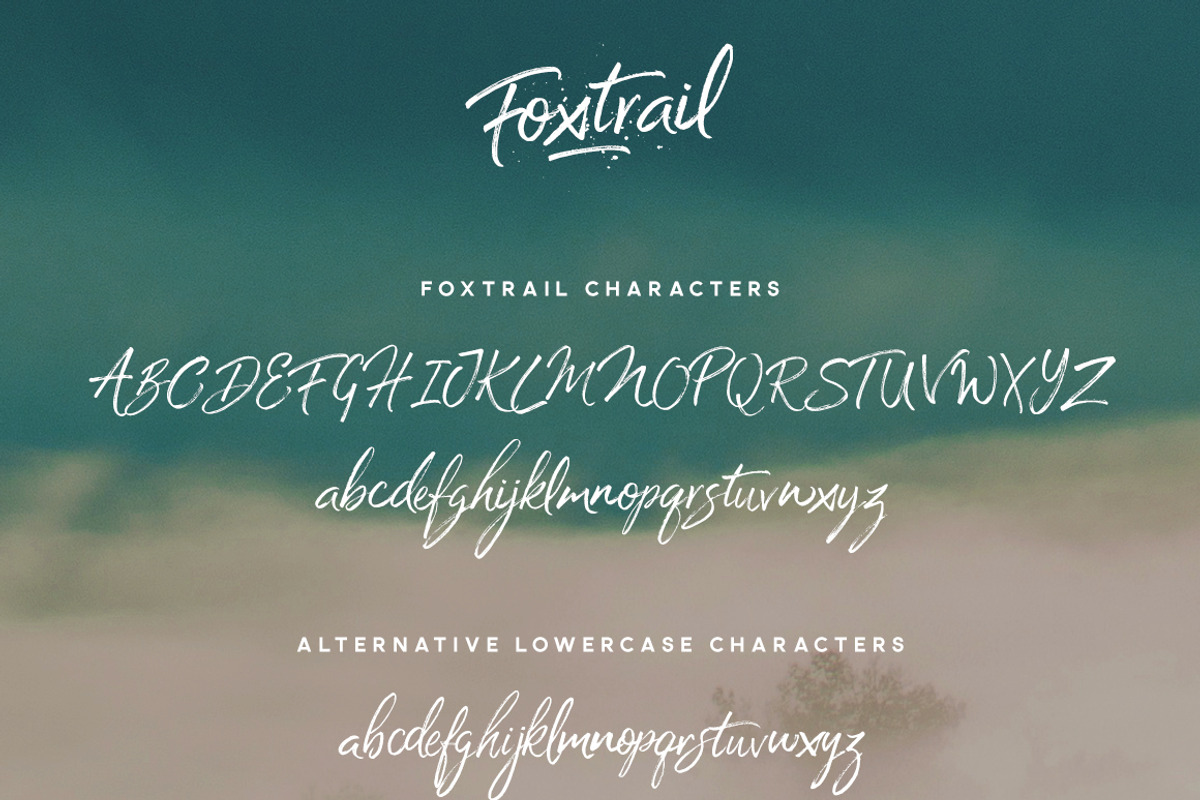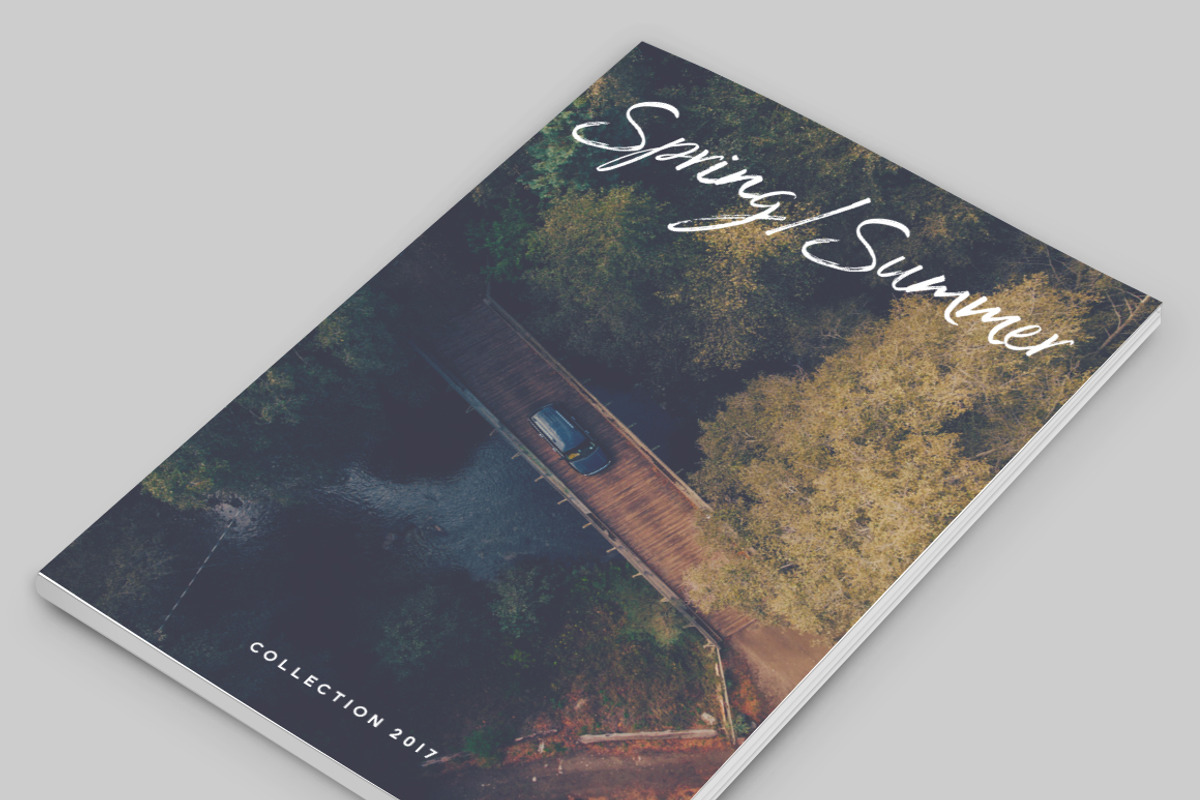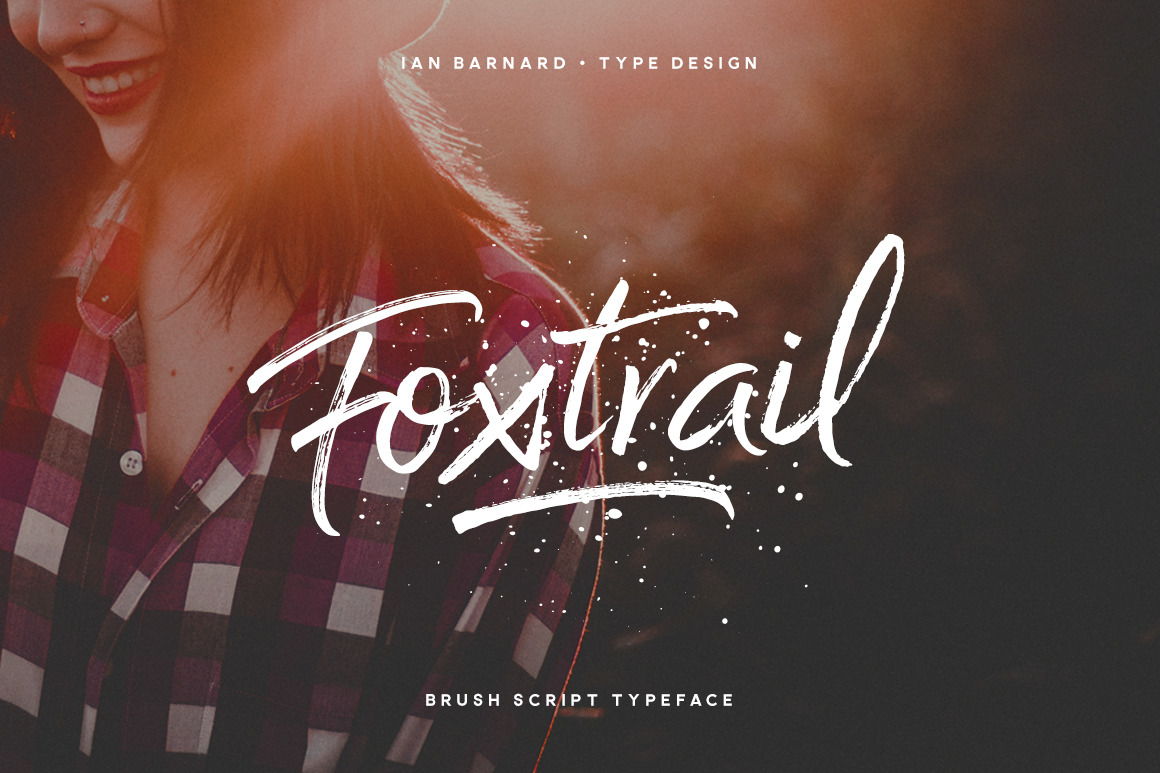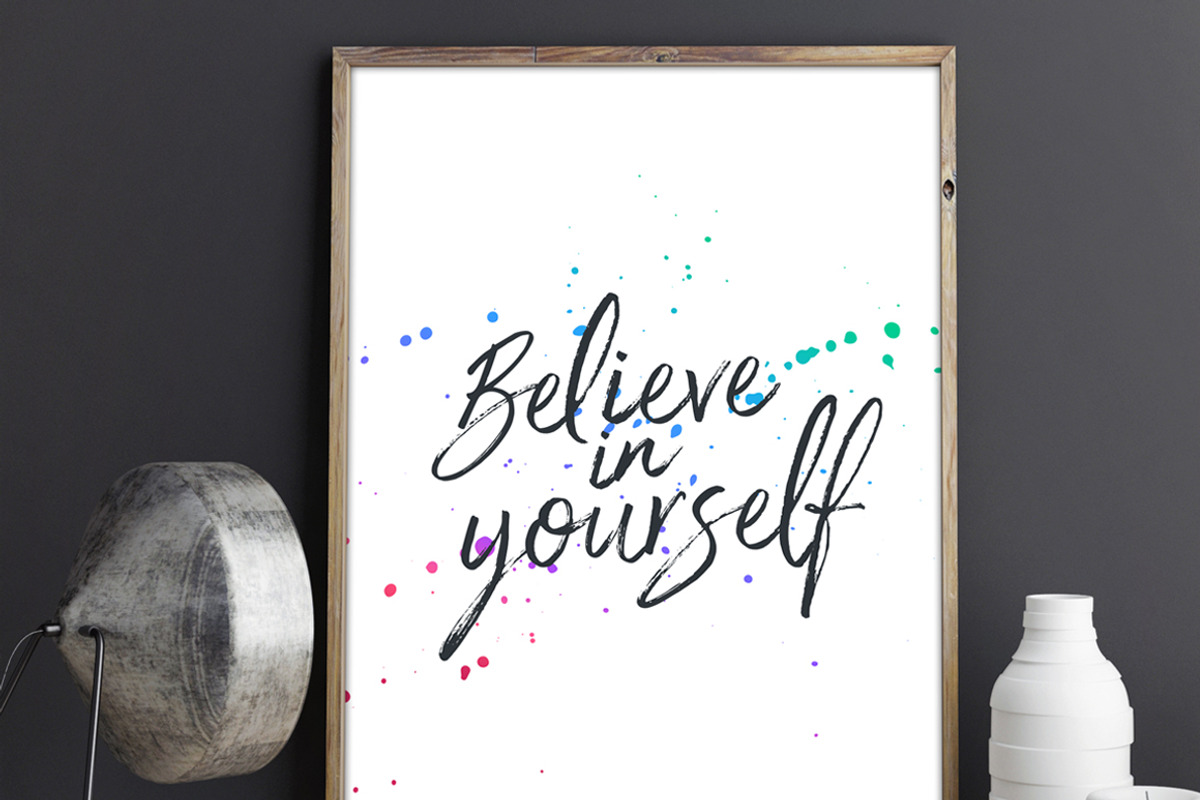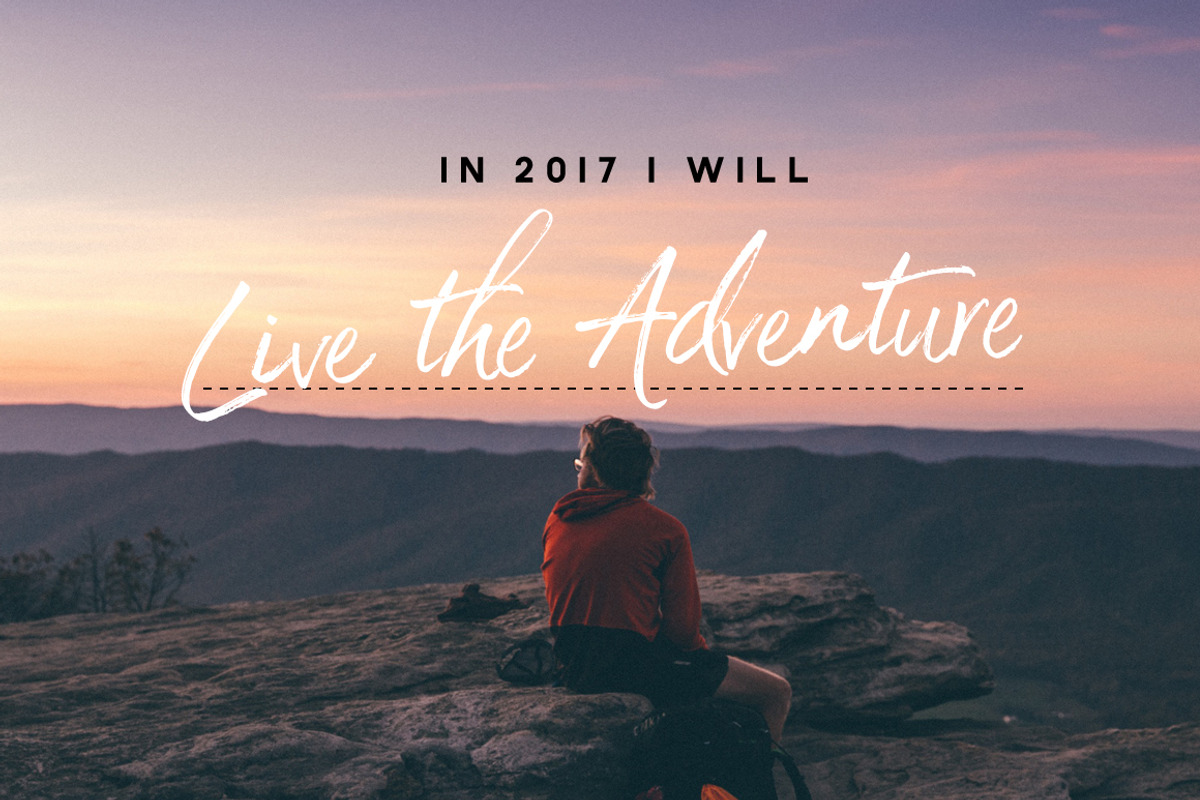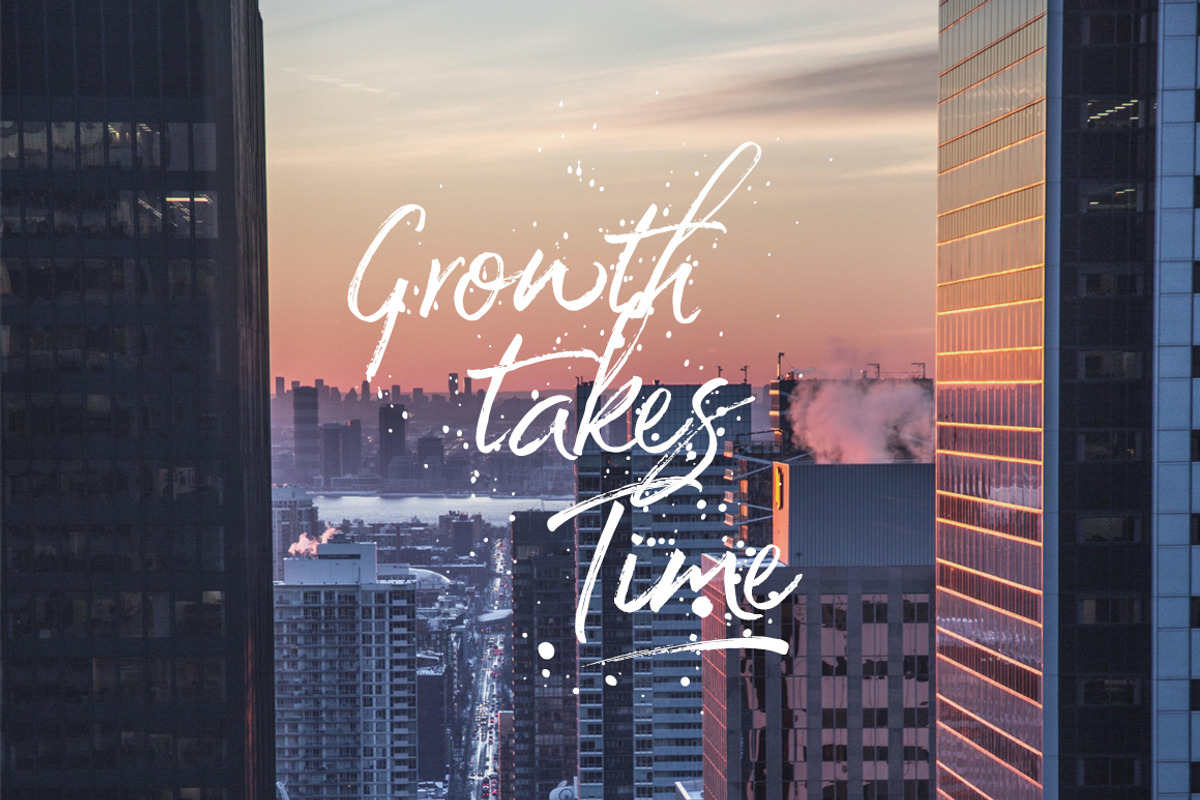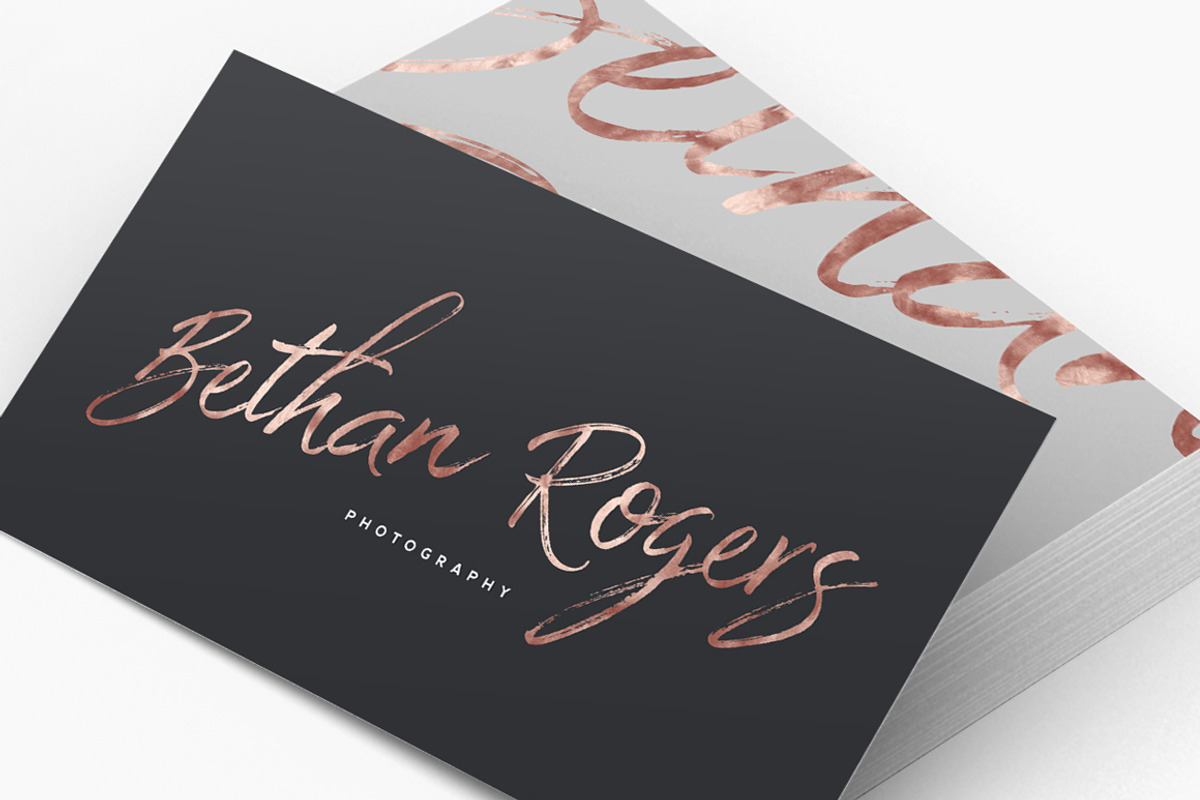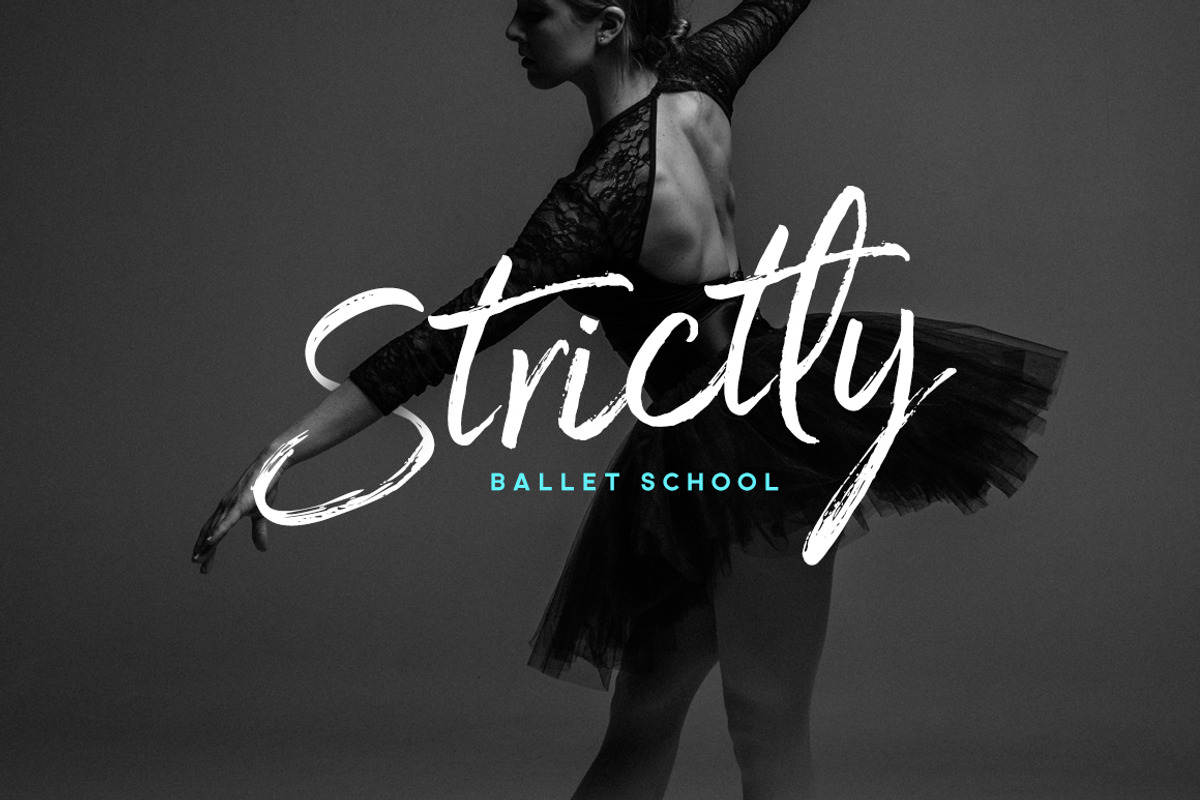
Foxtrail Font
Foxtrail is hand written font with tons of personality. A casual textured brush script, which works amazingly for branding, social media post and packaging.
Foxtrail Script - Comes with alternative lower case letters, to give it that genuine bespoke hand drawn look. Found using the Glyphs panel in Illustrator and Photoshop.
Foxtrail Swashes - 26 hand-drawn textured swashes, to emphasise words and add that extra element to your design.
Foxtrail Ink Splatters - 12 ink splatters to combine with the type to that casual
Of course I purchased Foxtrail to match our design needs in this website project. Sadly I discovered later, that it lacks the German -ß- character, which in fact causes a big issue for us, as headlines get fetched from a database. Another issue are uppercase words, abbreviations and acronyms. Foxtrail doesn't work with these, we had to rethink a lot of our site design to match the fonts capabilites. That's why I can only award 3 stars, as usability for multilingual web applications is very limited, to say the least.